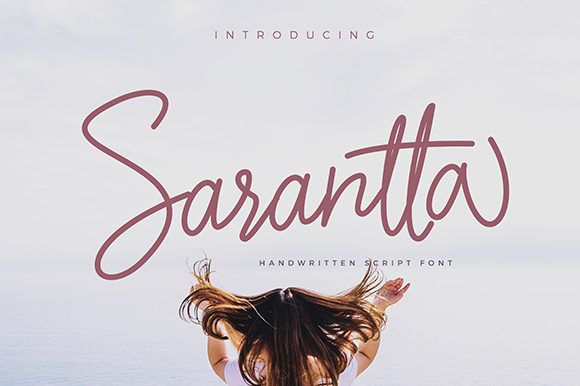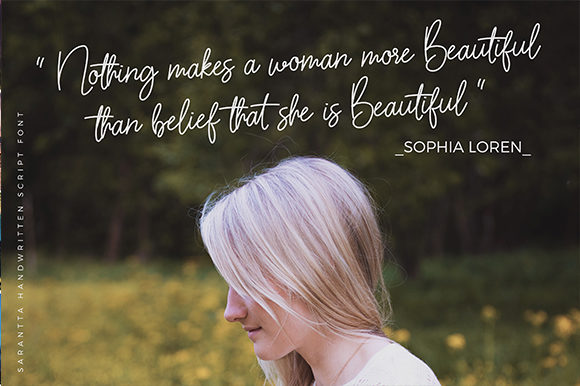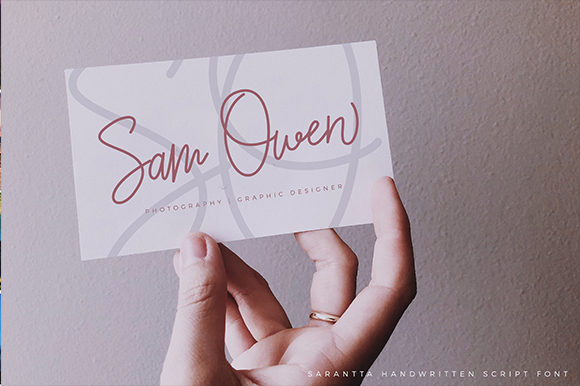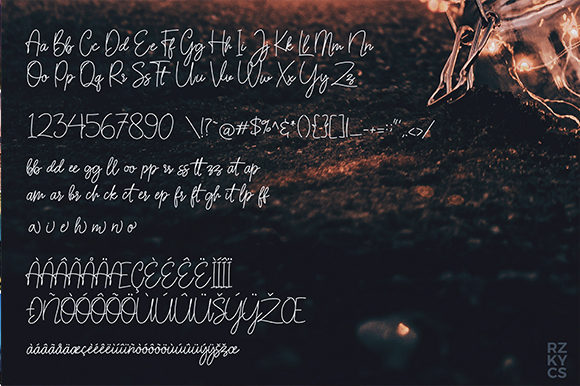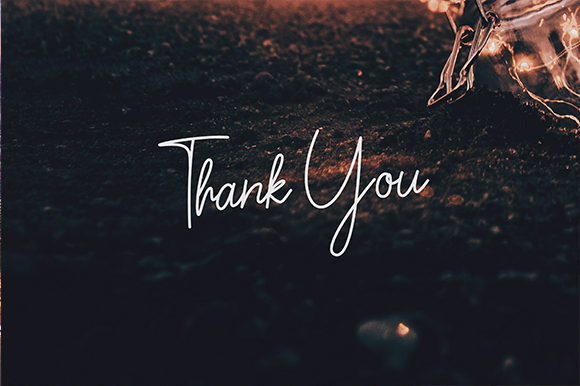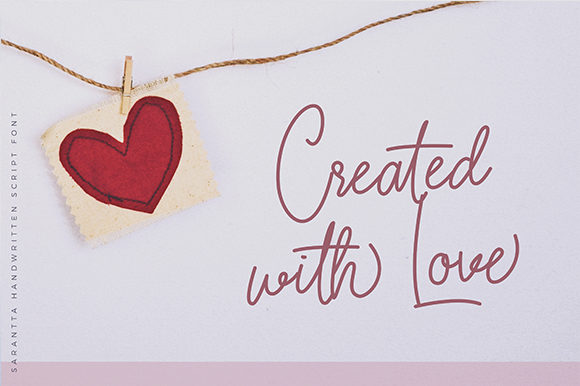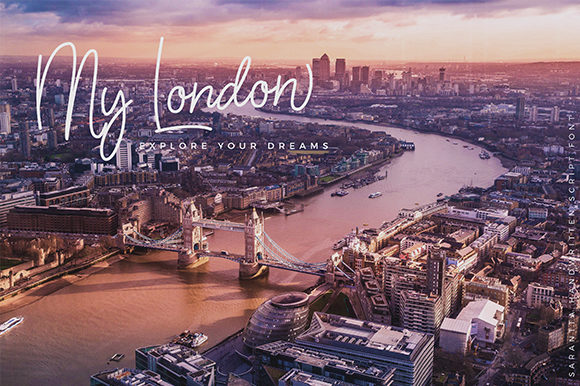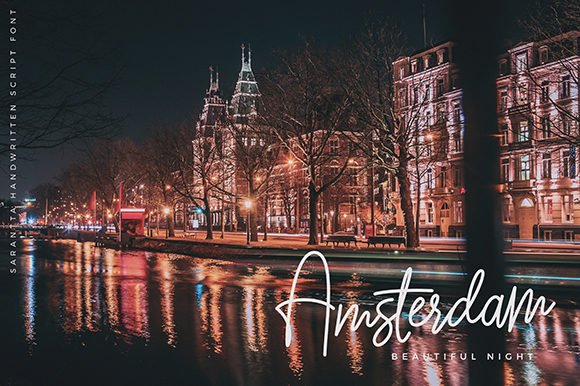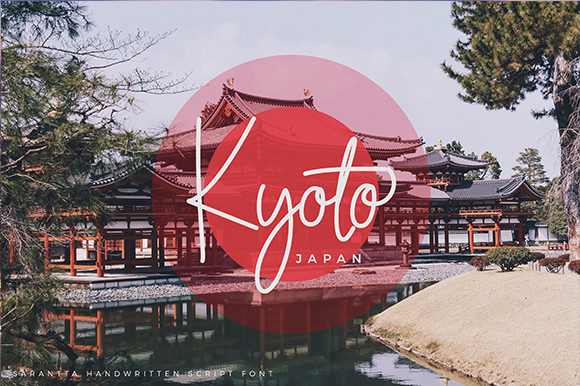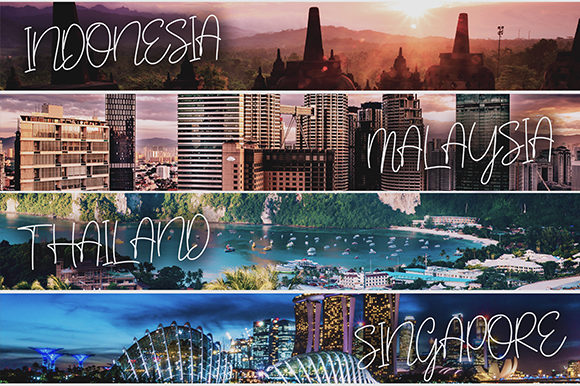
Sarantta Font
About Sarantta Font
Sarantta is a beautiful and fun handwritten font with incredible swashes. It will add a romantic flavour to any crafting idea!